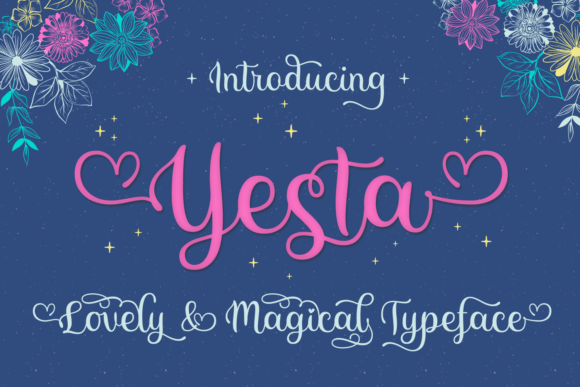
Dive into the world of Yesta Font, a captivating script font family that will ignite your imagination and transform your designs into masterpieces! Crafted by the talented Situjuh, Yesta exudes a charm that is both playful and elegant, inviting you to express your creativity like never before.
Step into a realm of endless possibilities, where Yesta's enchanting swashes and alluring ligatures dance together, adding a touch of magic to every letter. With Yesta, your words will come to life, captivating your audience with their beauty and grace.
Unleash your artistic flair and explore the versatility of Yesta, a font that adapts seamlessly to a myriad of projects. Whether you're designing stunning Instagram posts, creating heartfelt calligraphy scripts, or embarking on captivating DIY endeavors, Yesta will elevate your ideas, transforming them into tangible works of art.
Tap into the boundless creativity that Yesta inspires and let your imagination run wild. With its user-friendly charm, Yesta is perfect for both seasoned designers seeking to enhance their repertoire and aspiring artists eager to explore the world of typography.
Embark on a creative journey with Yesta Font, a font that will ignite your passion, capture hearts, and leave an unforgettable mark on the world. Experience the beauty of Yesta today and unlock a world of boundless creativity!